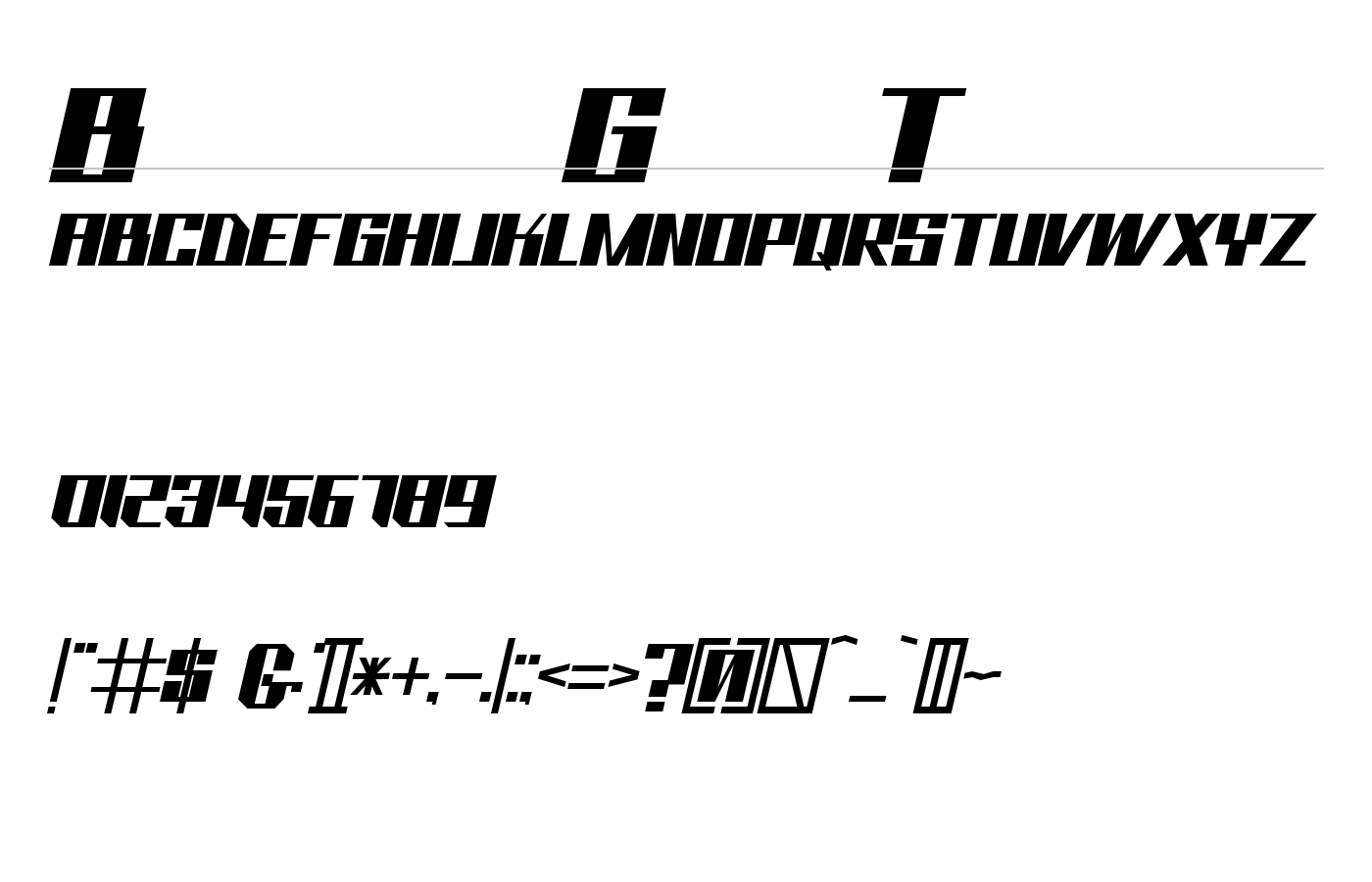
Bhejeuct Gash is a bold, condensed sans serif typeface with a distinct slanted angle, giving it a strong sense of motion and modern dynamism. Its sharp, geometric letterforms and high contrast strokes create a striking, edgy style ideal for impactful headlines, sports branding, or futuristic designs. This font works best where attention-grabbing, energetic typography is needed, such as posters, logos, and display use.
Bhejeuct Gash Typeface Font
About Bhejeuct Gash Typeface Font
| Font family | Bhejeuct Gash Typeface Font |